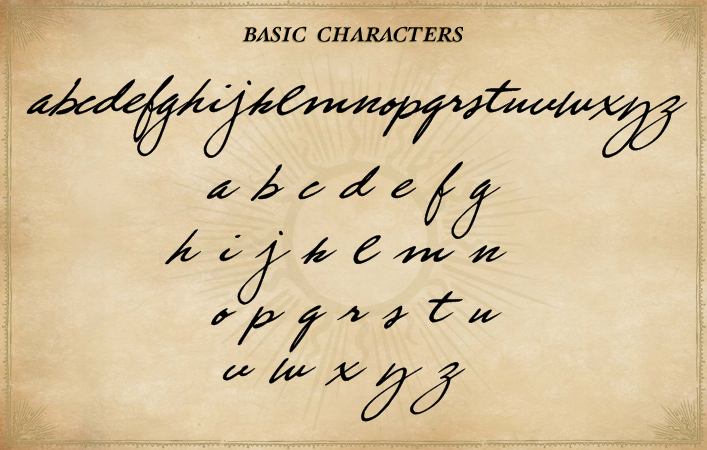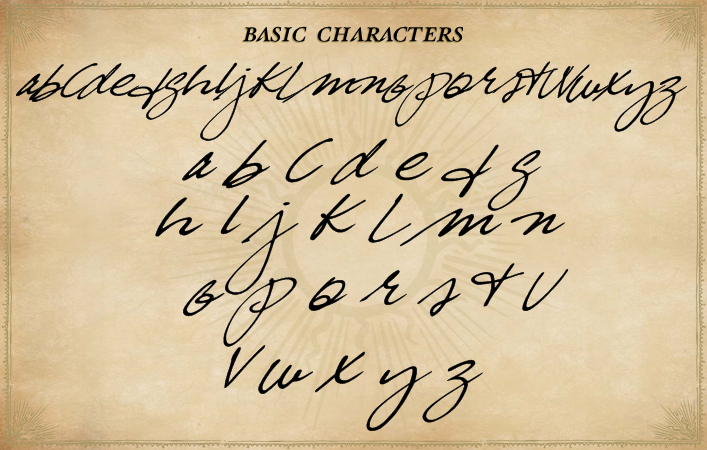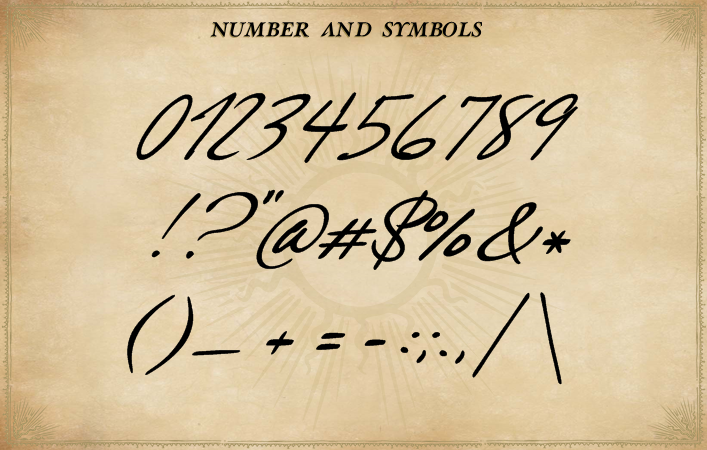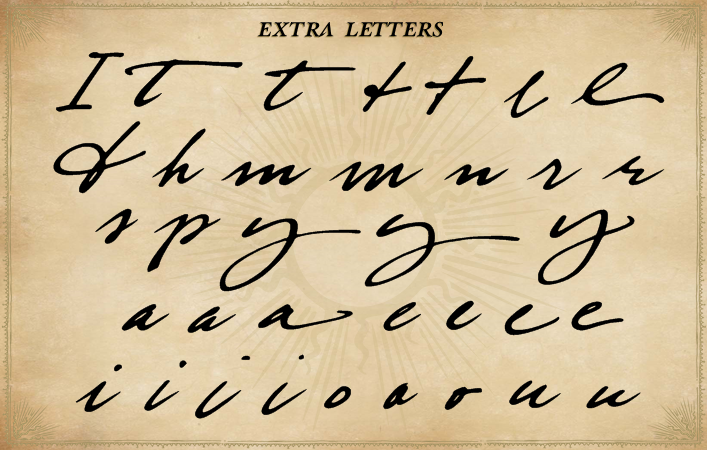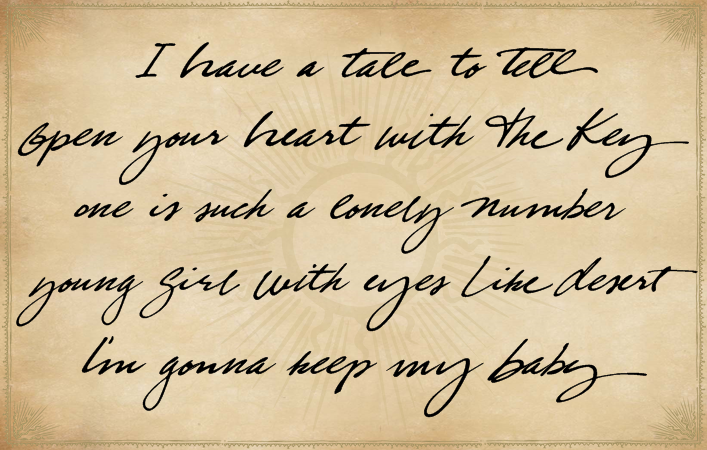
True Blue Font
About the True Blue font
The True Blue font is a font based on the album tracklist from Madonna’s “True Blue” album. The result is a unique stylish script font.